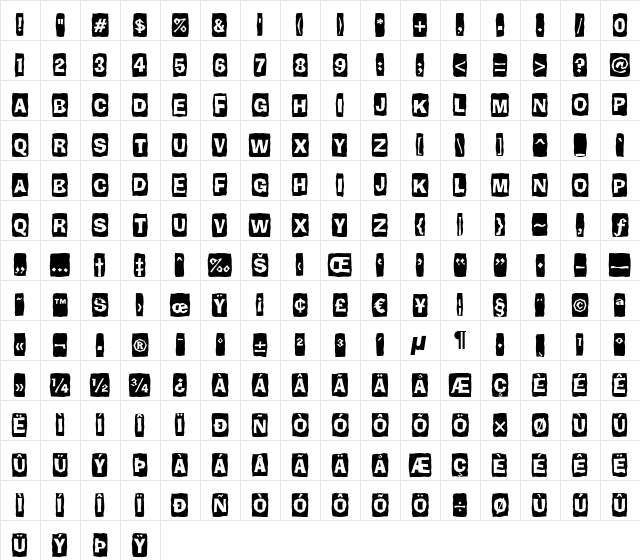
a_BrokerCm Regular
| Designer | W.Chufarofsky & M.Slutsker |
Design Context for a_BrokerCm Typeface
a_BrokerCm is a composed and adaptable typeface that performs quietly and consistently across a wide range of design contexts.